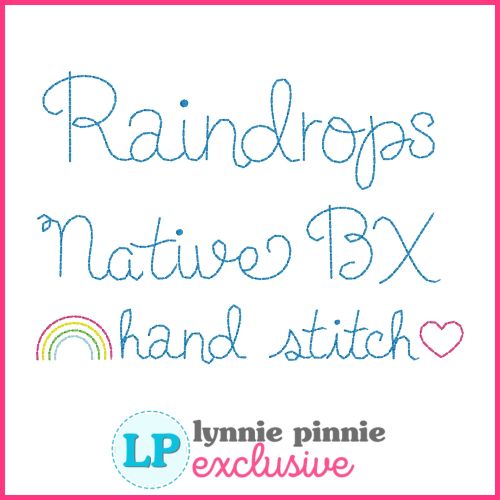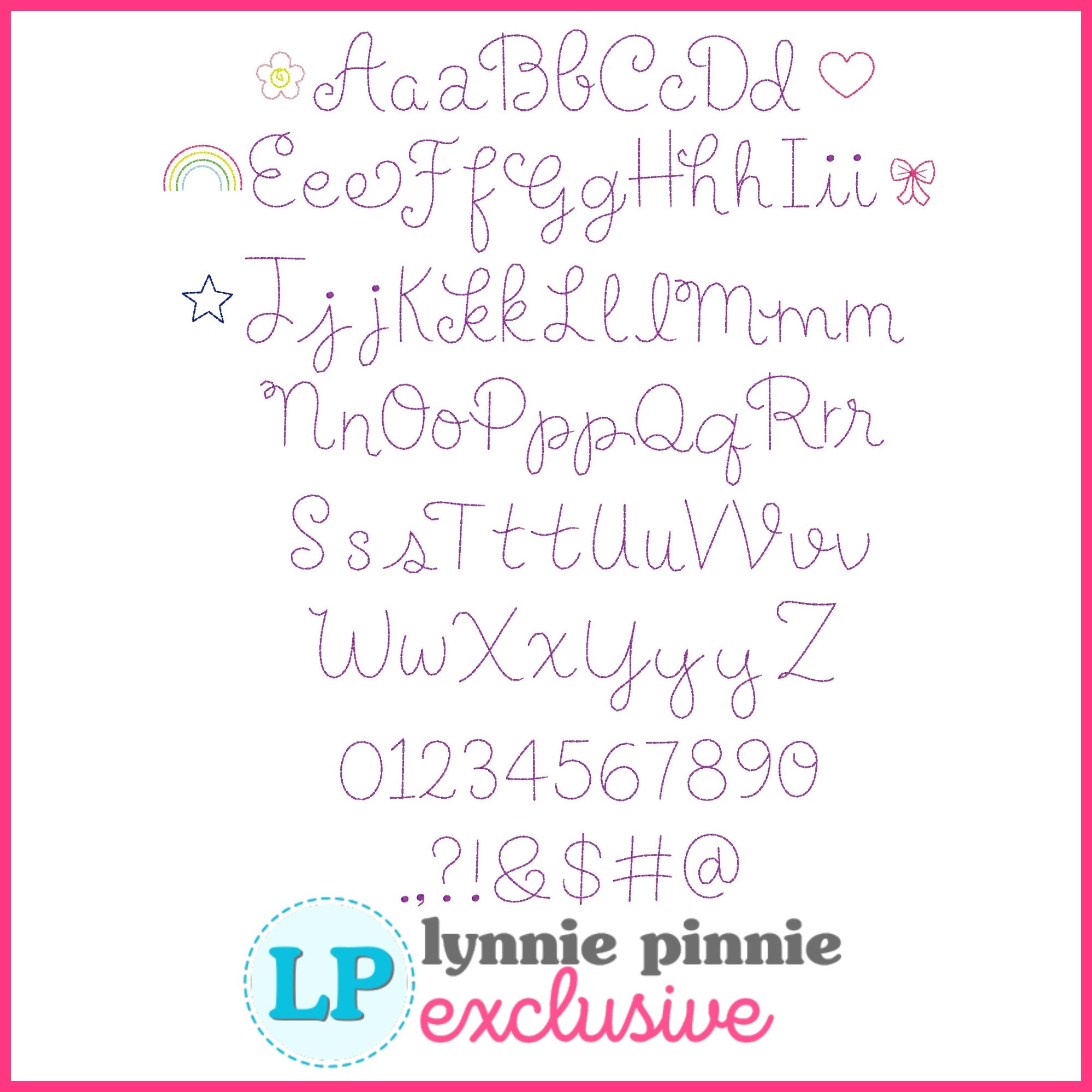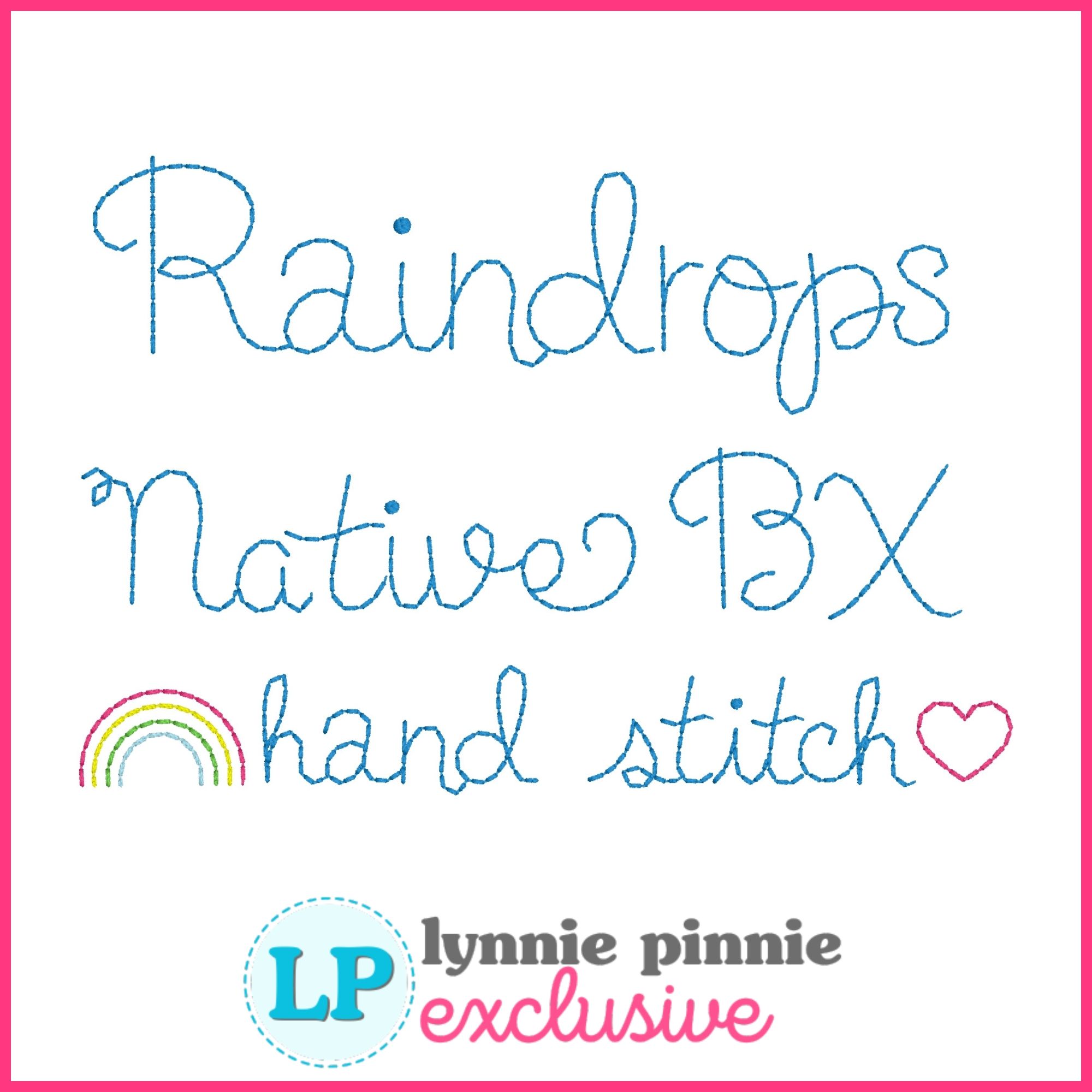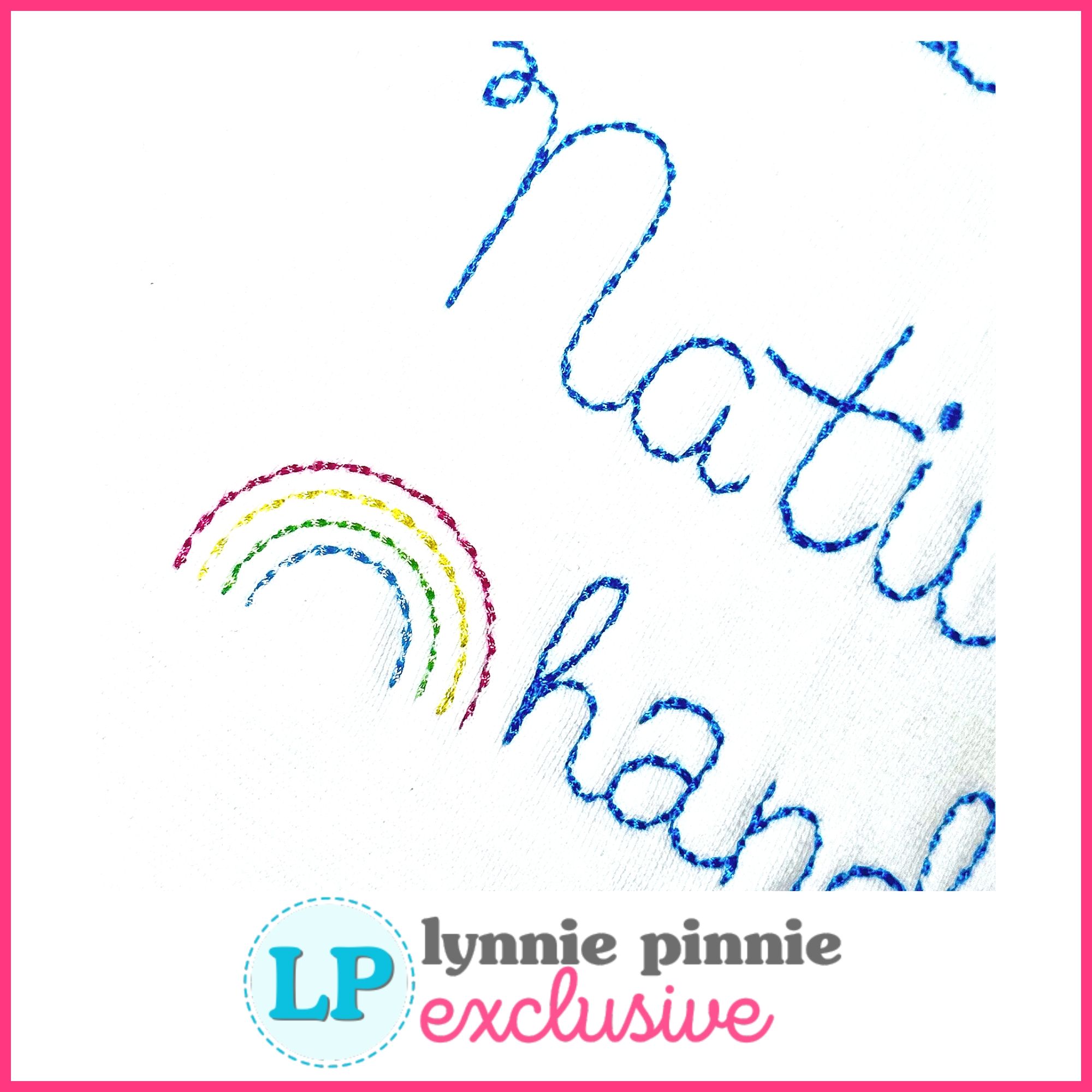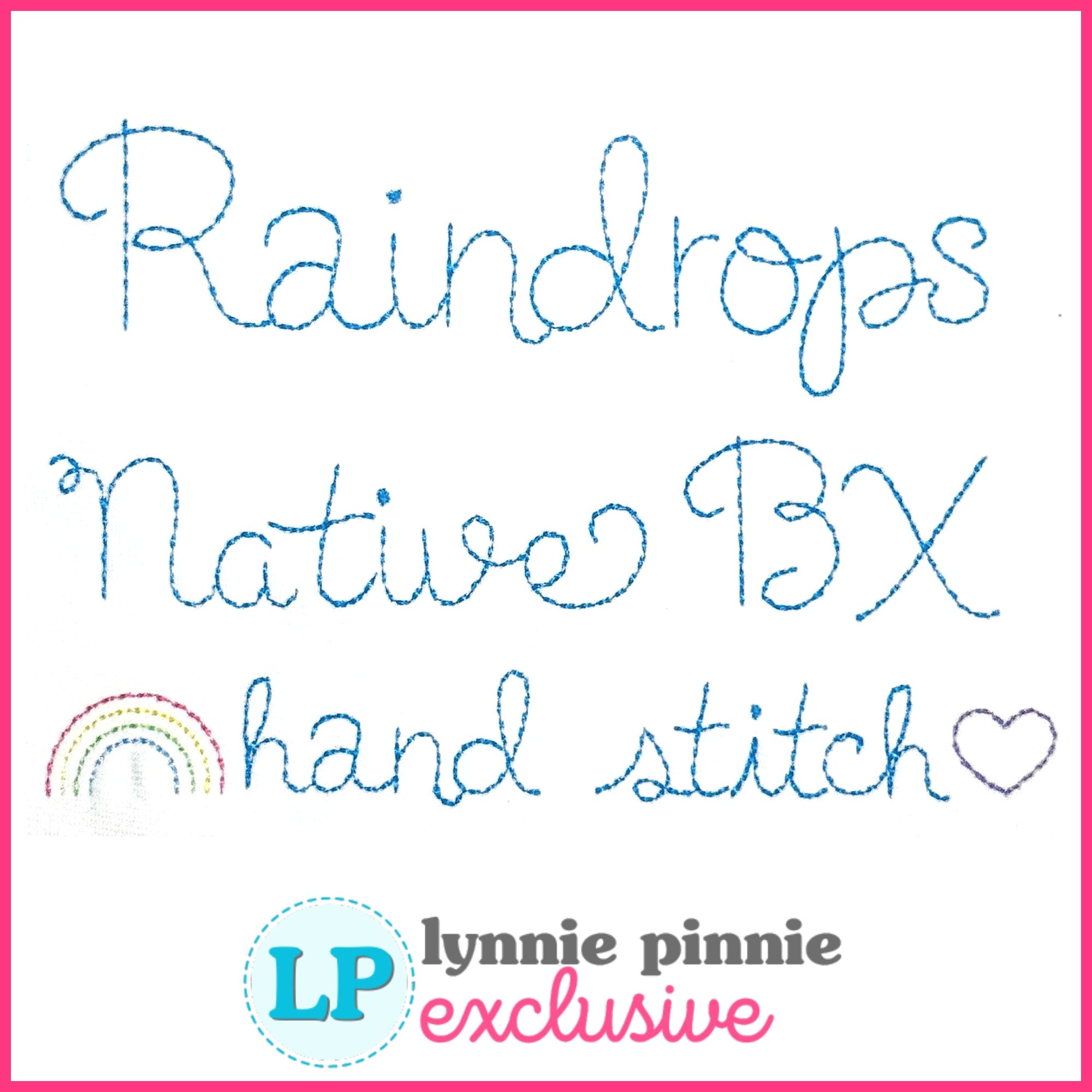
Raindrops Hand Stitched Style Machine Embroidery Font – 6 Sizes + Scalable Native BX File, Dingbats & Alternates
Raindrops Hand Stitch is a playful, hand-drawn machine embroidery font that includes uppercase, lowercase, numbers, punctuation, and built-in dingbat symbols mapped to letter keys for easy access. It’s the perfect font for stitching sweet names, labels, and embellishments.  It's easy to add the included rainbow, heart, star, or flower to your text designs!
Alternate Characters Included:
Lowercase: a, e, h, i, j, k, l, m, p, r, s, t, y
Uppercase: V